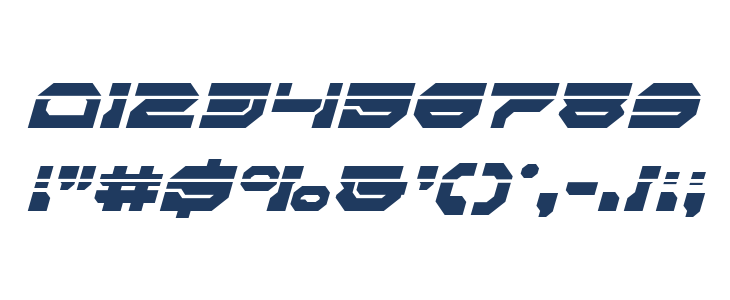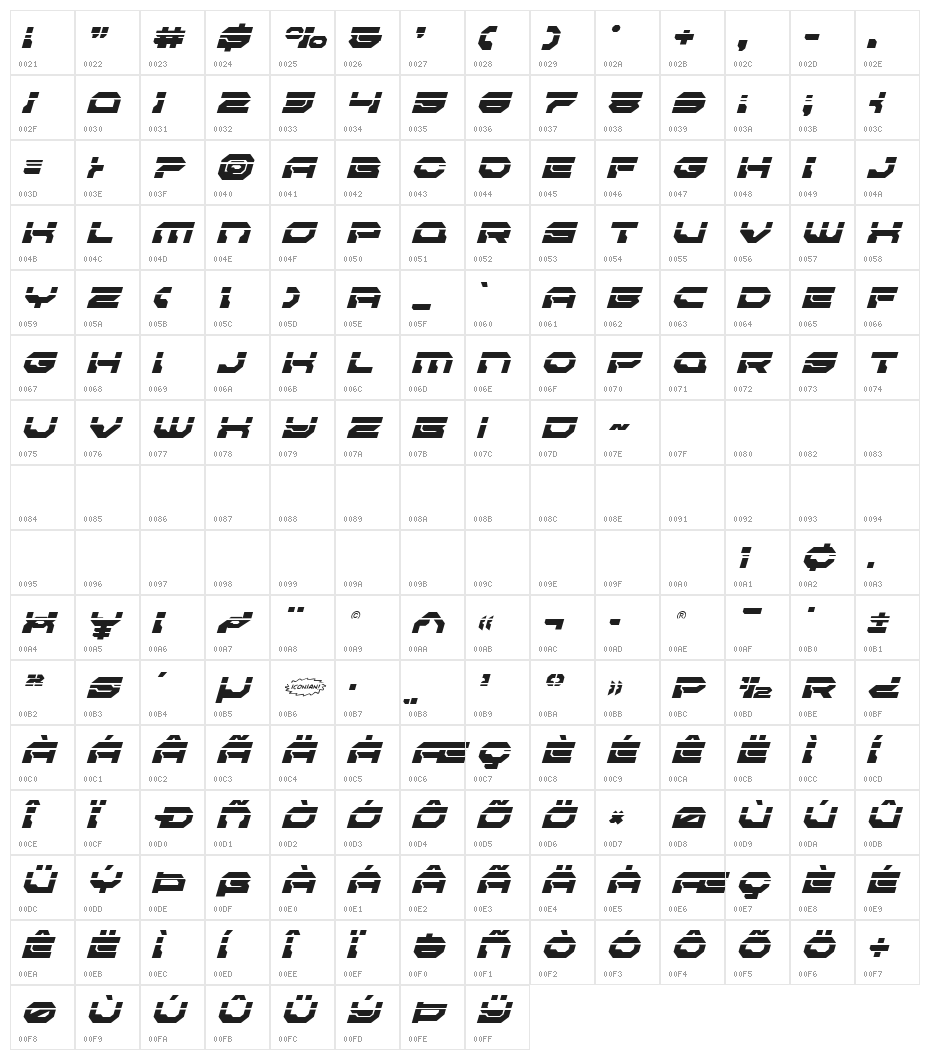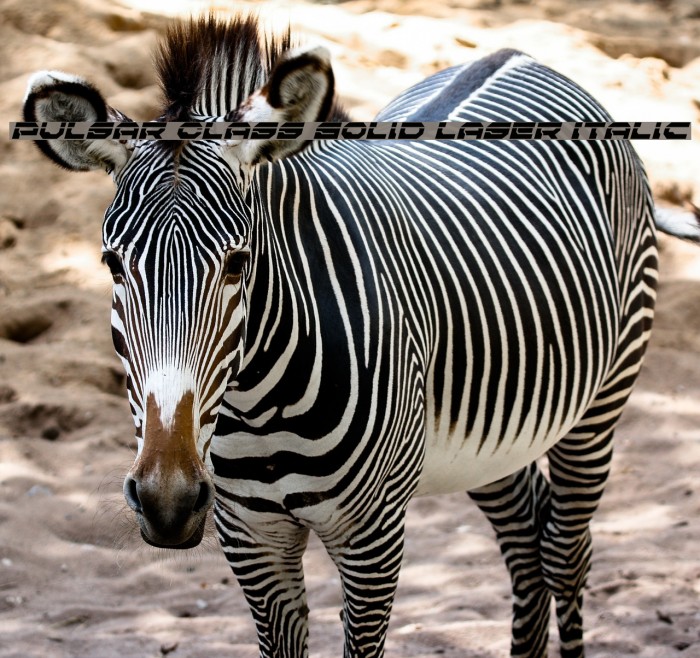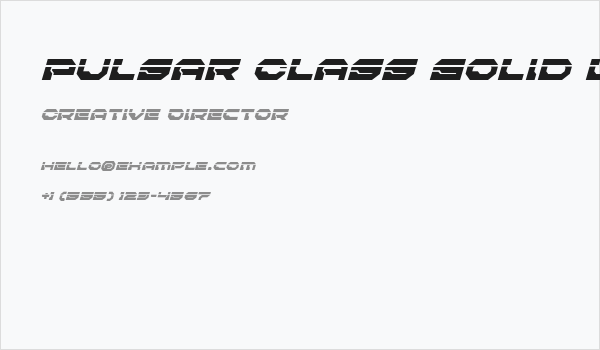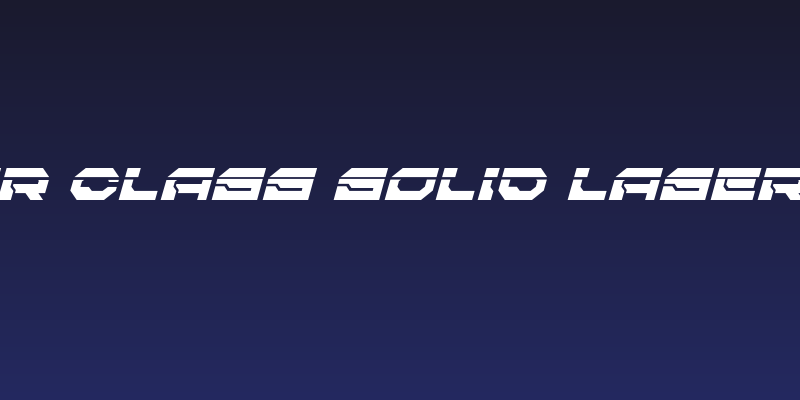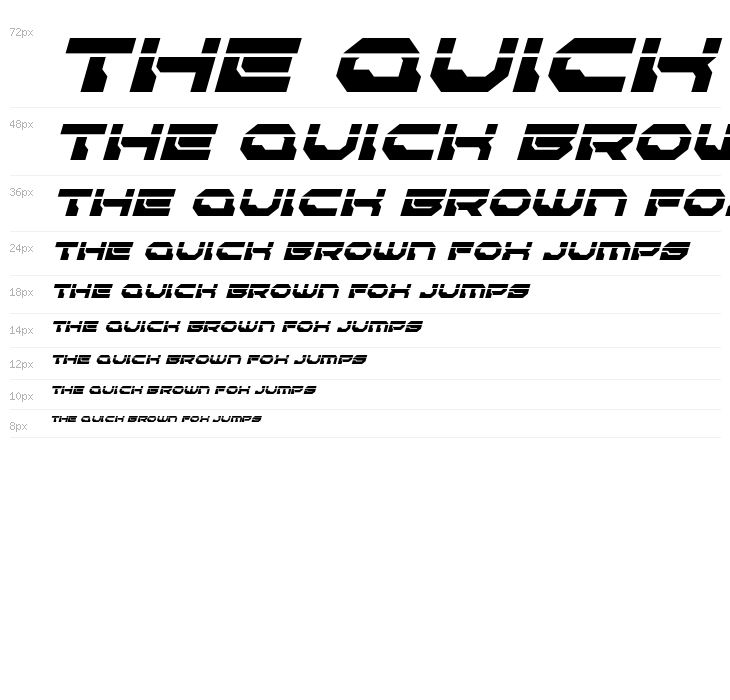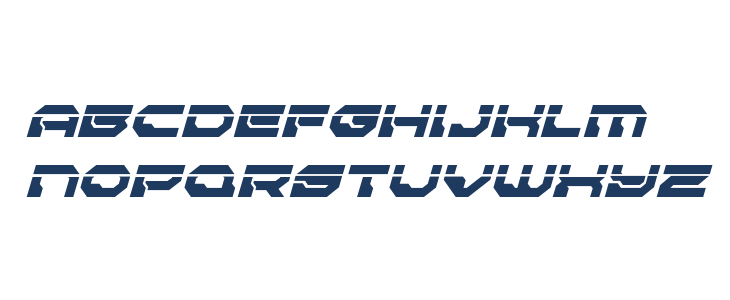
Pulsar Class Solid Laser Italic Font
Pulsar Class Solid Laser Italic Description
This font features a futuristic and angular design, characterized by sharp edges and a bold presence. The letters are italicized, giving a sense of motion and speed. Each character is constructed with geometric precision, creating a cohesive and modern aesthetic. The uppercase and lowercase letters maintain a consistent style, while the numbers and special characters complement the overall design. The font's unique style makes it stand out, suitable for projects that require a modern and dynamic look.
| Proposed Projects | Ideal for sci-fi themed designs, technology branding, video game titles, and futuristic posters. |